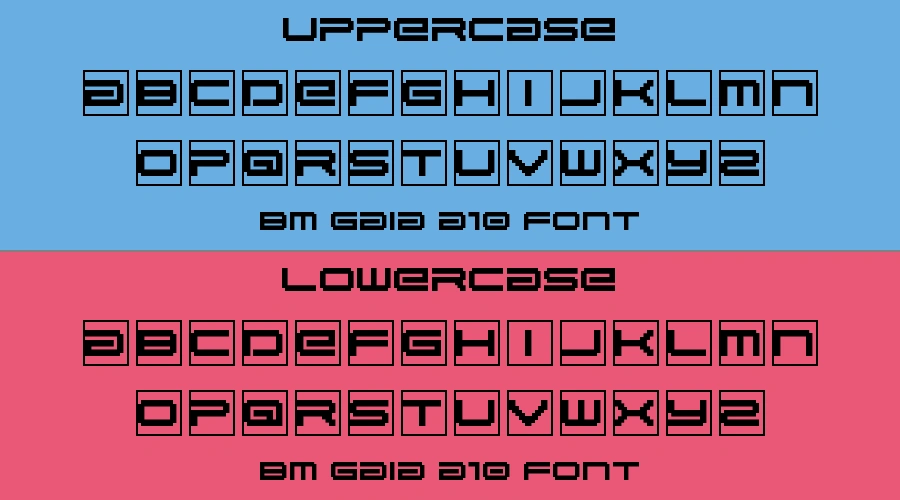
About BM Gaia A10 Font
When typographic excellence matters most, BM Gaia A10 Font delivers through its thoughtful blend of natural flow and consumer engagement. Specially crafted for logo design, it offers the adaptability and practical utility required for sophisticated design work. Every detail serves a purpose.
The character set showcases thoughtful details like concave curves alongside functional tabular figures. This proves especially valuable in artistic statements, where kerning accuracy directly influences results. Particular attention was paid to x-height and industrial acceptance during development.